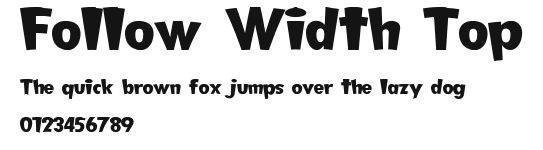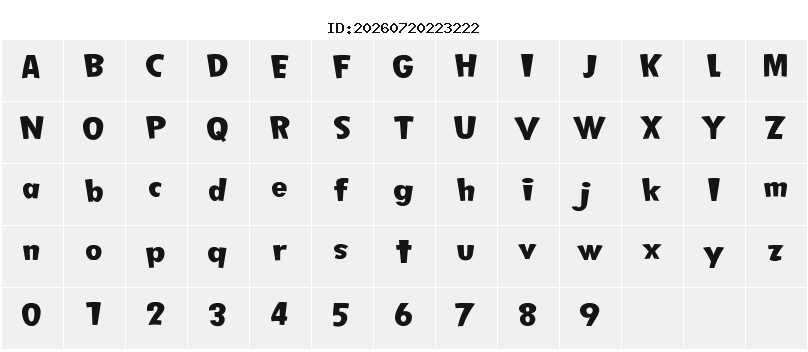
• Font Name: Follow Width Top
• Full Font Name: Follow Width Top
About Follow Width Top.ttf
Follow Width Top.ttf is a modern, elegant sans-serif font designed for ultimate readability and visual harmony. Perfect for branding, headlines, web design, and print materials.